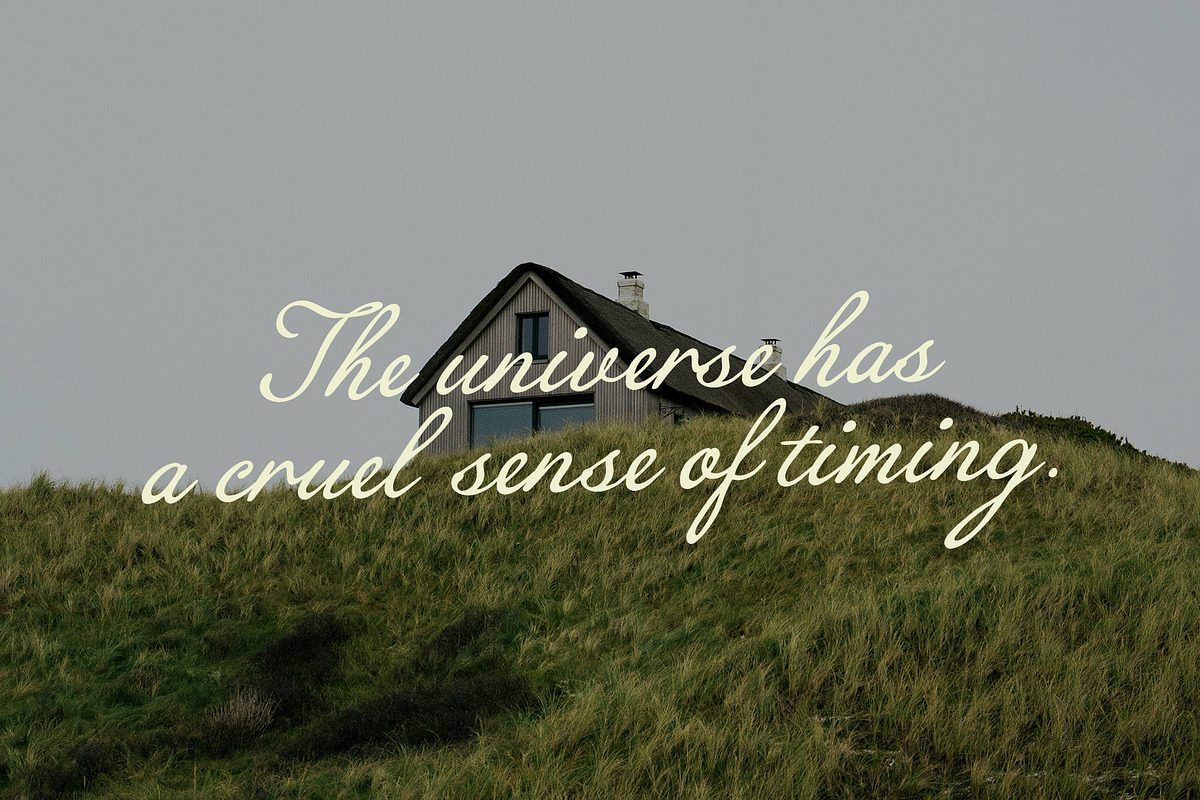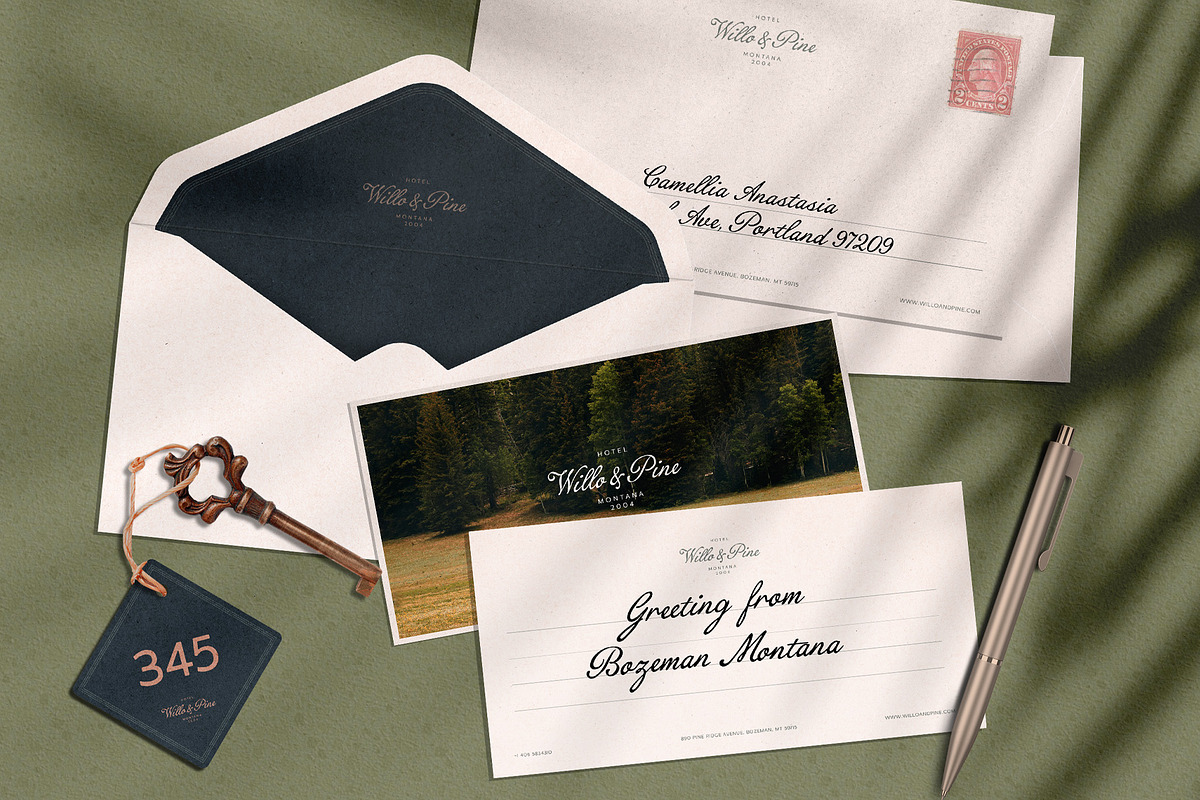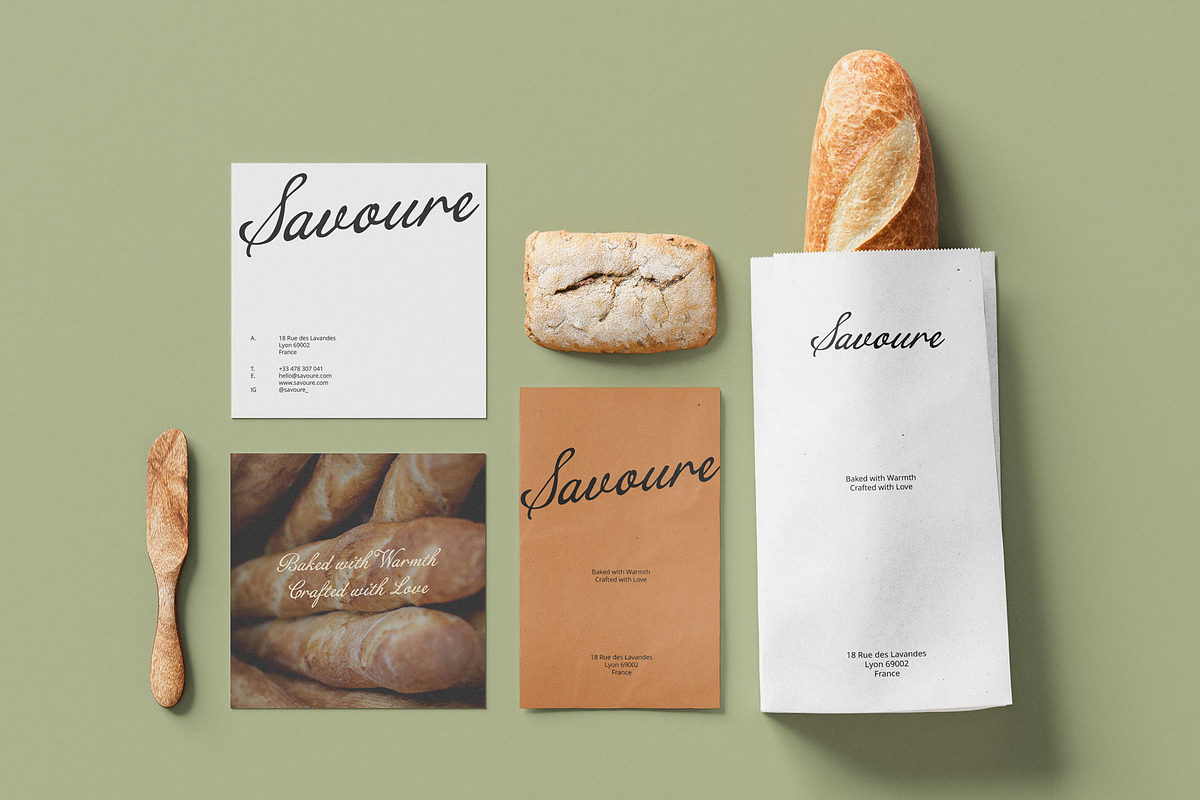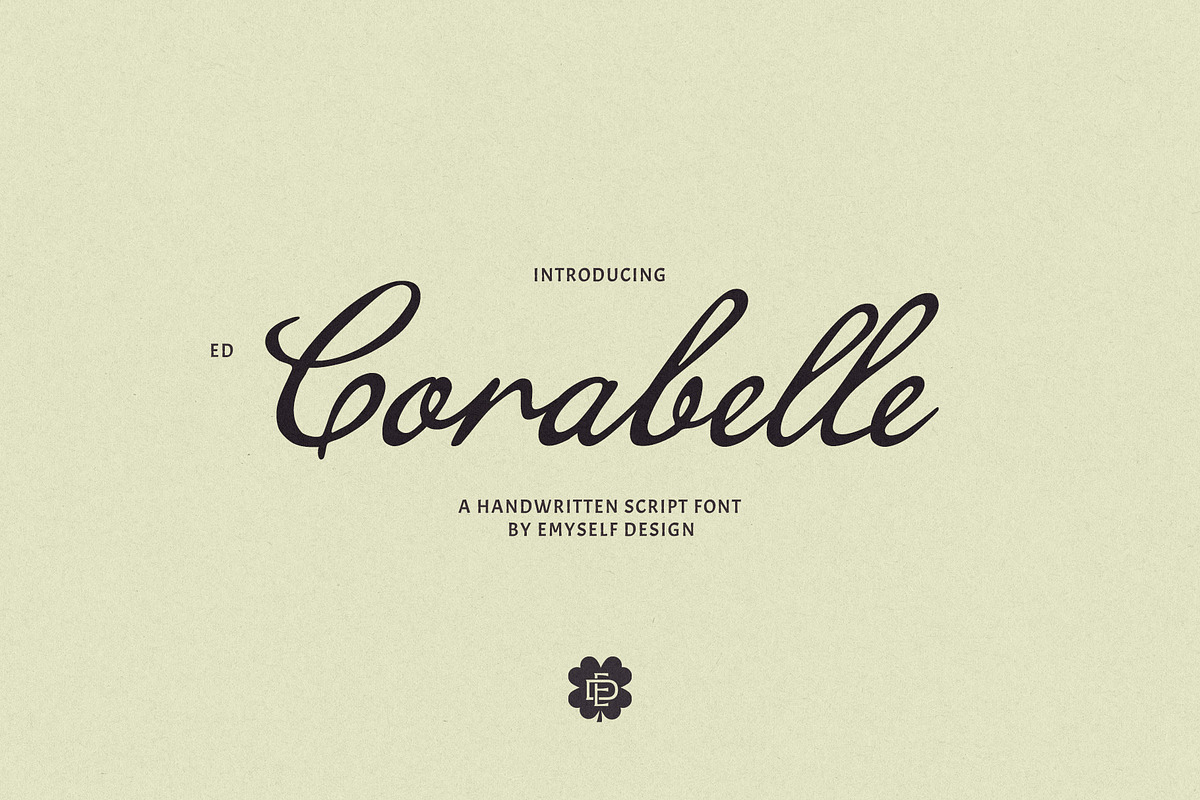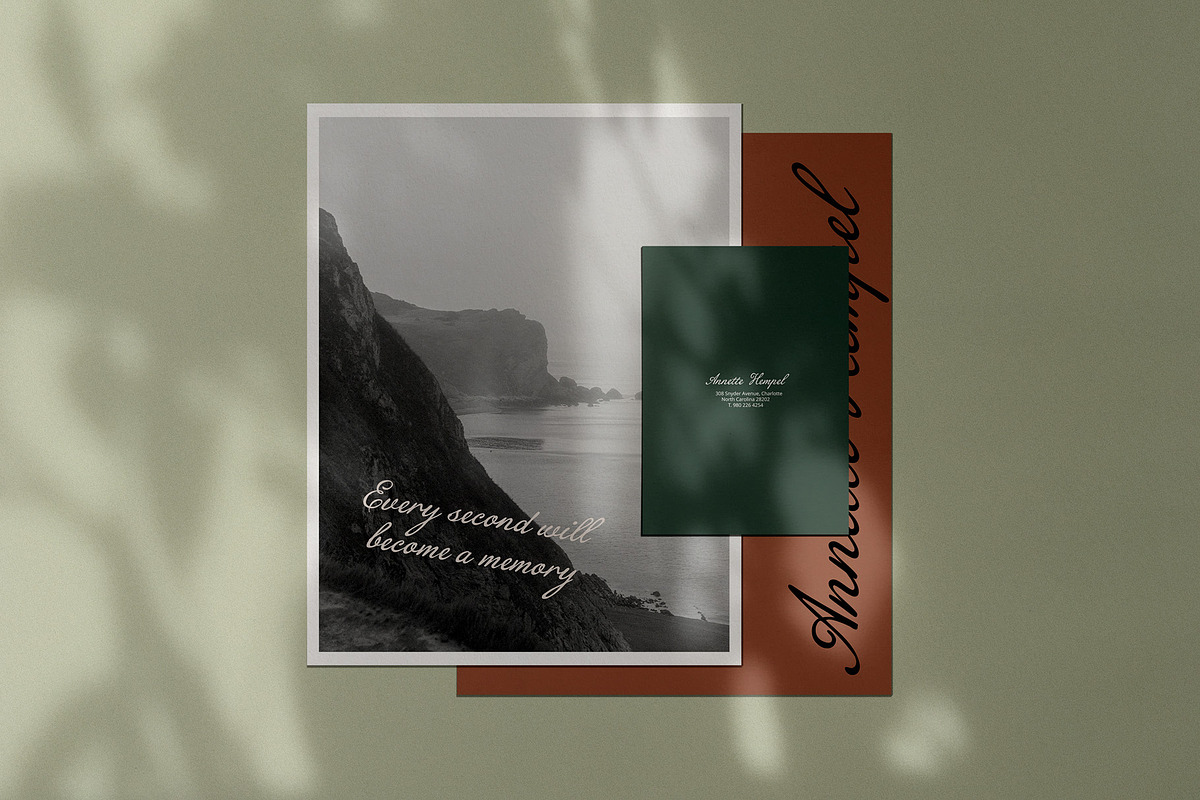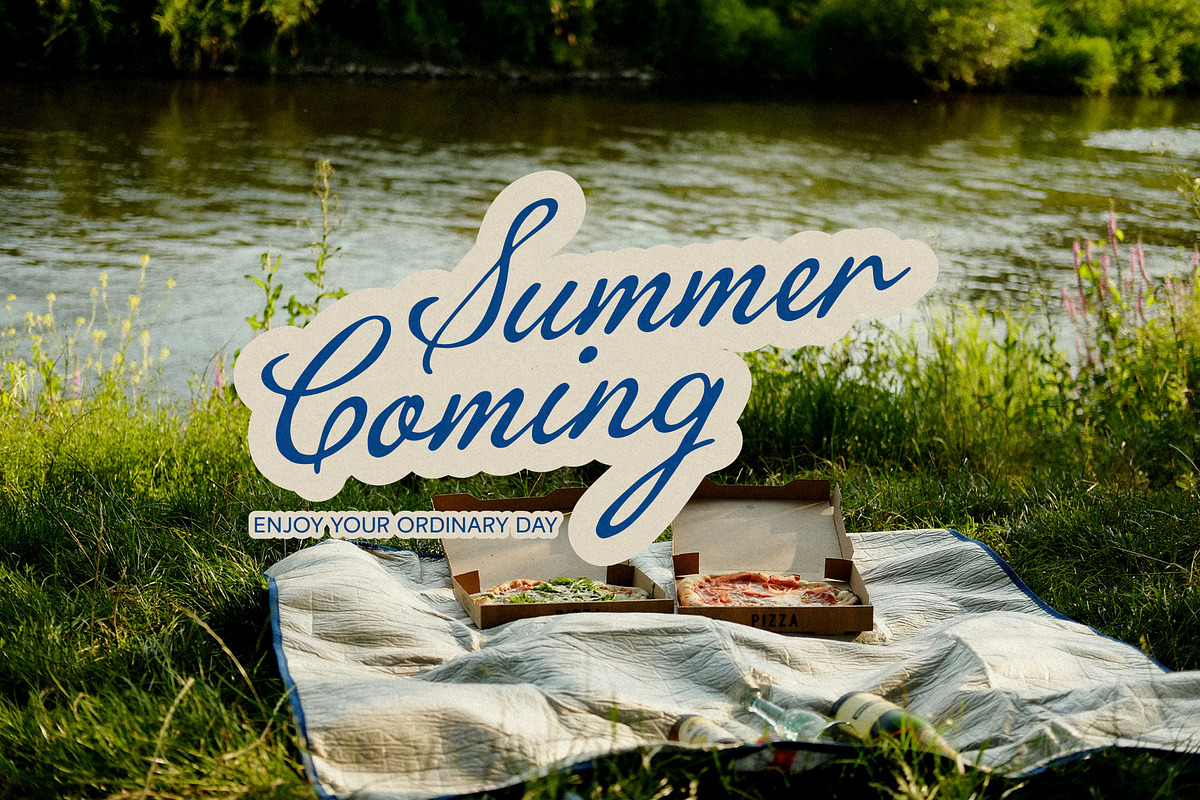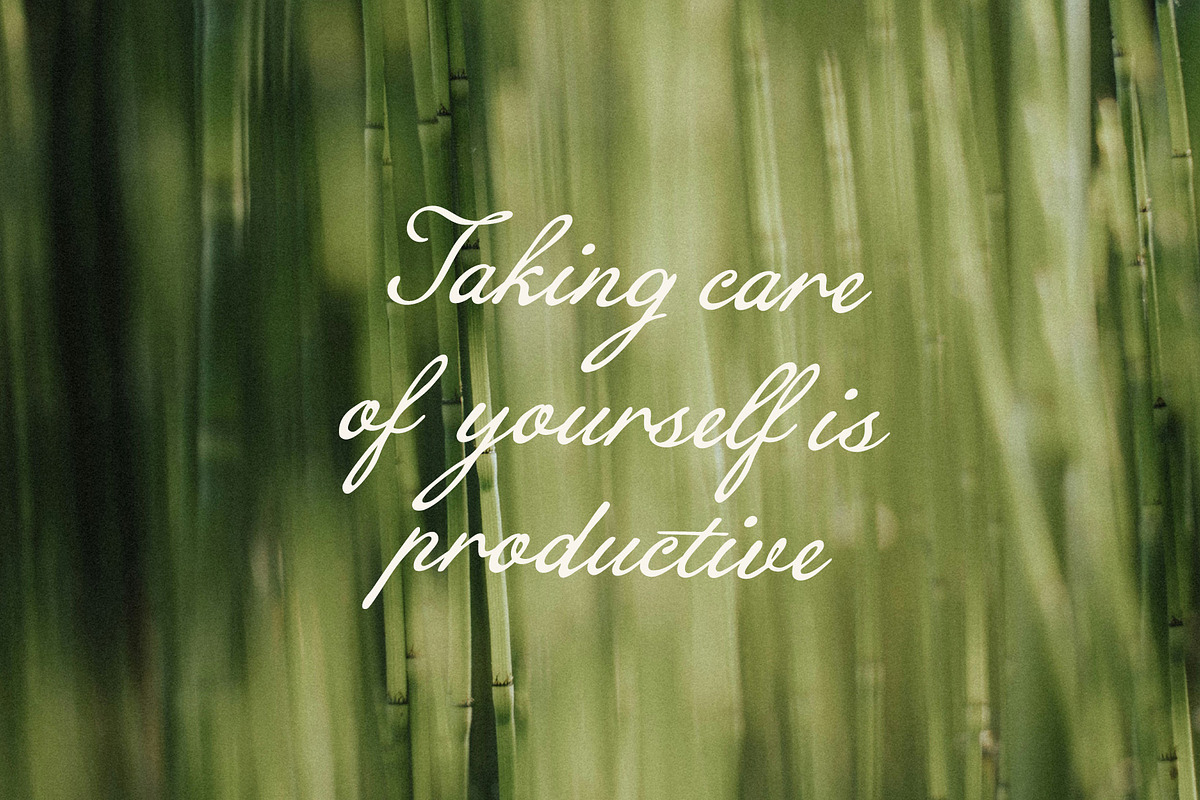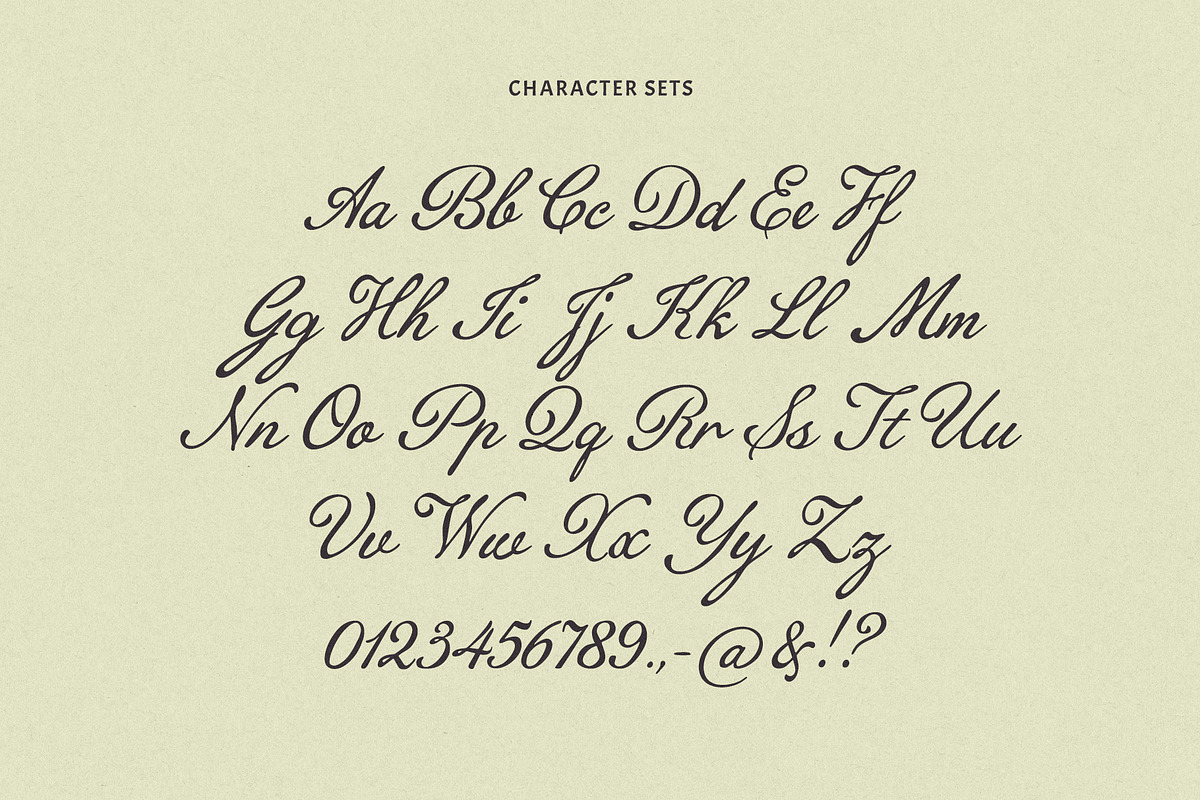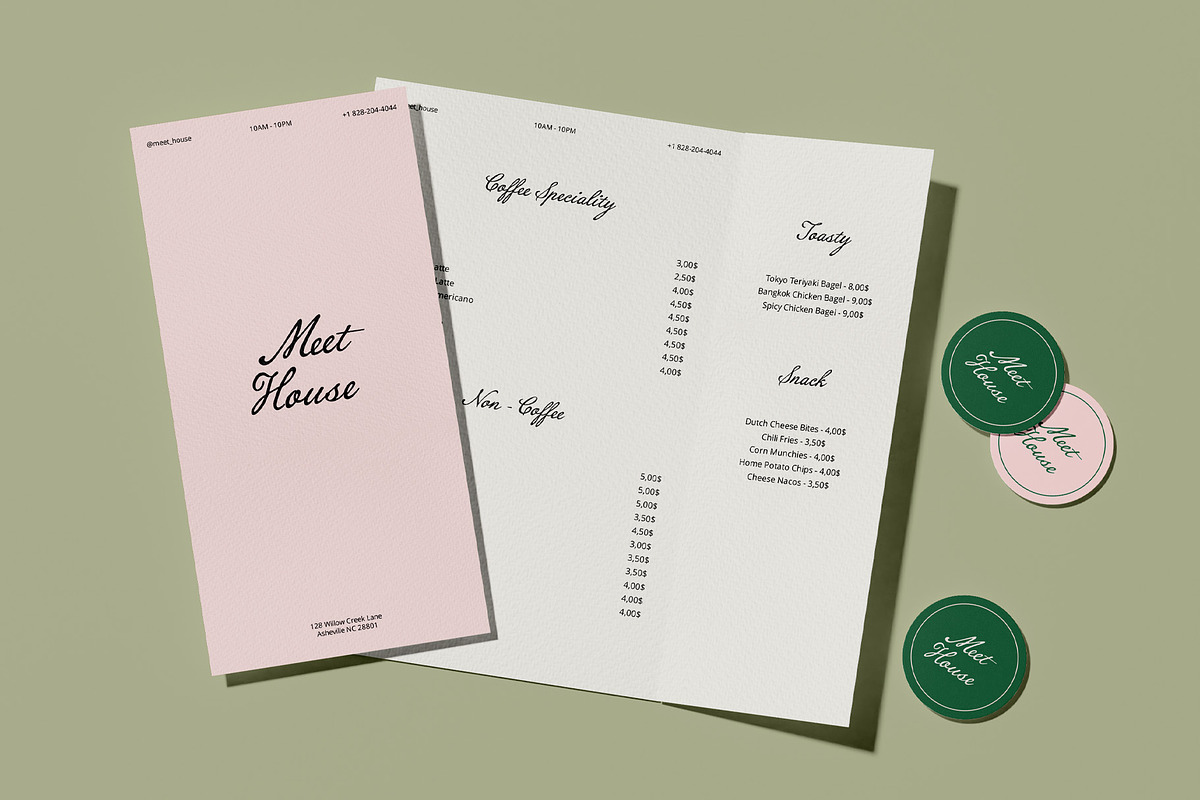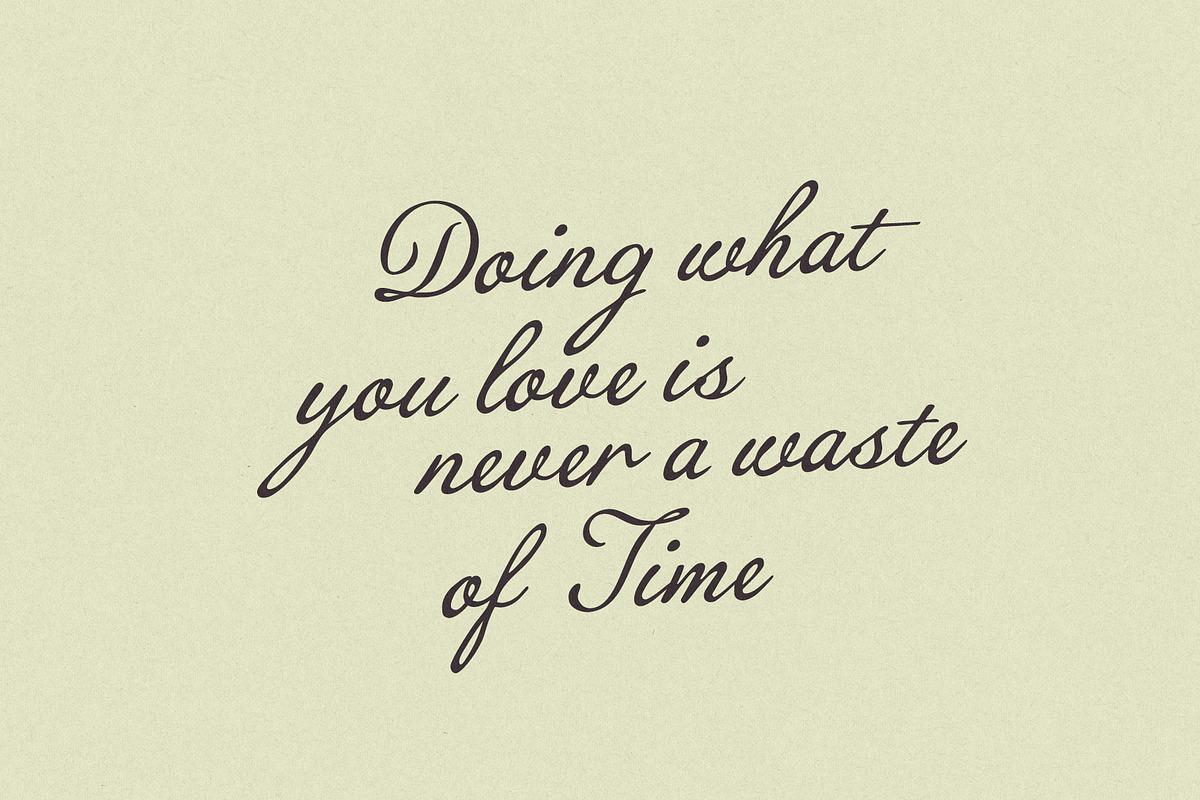
ED Corabelle - Handwritten Script
Meet ED Corabelle — a beautifully imperfect handwritten script font that captures the soulful charm of ink on paper. Featuring expressive thick-and-thin strokes, sweeping capital letters, and naturally flowing letterforms, ED Corabelle carries the romantic elegance of timeless calligraphy with the warmth of genuine handwriting.
Every curve and connection feels intentional yet effortlessly natural — the kind of writing that turns words into art. Perfect for wedding invitations, stationery, greeting cards, logos, social media content, quotes, branding, and any design that calls for an authentic handcrafted touch.